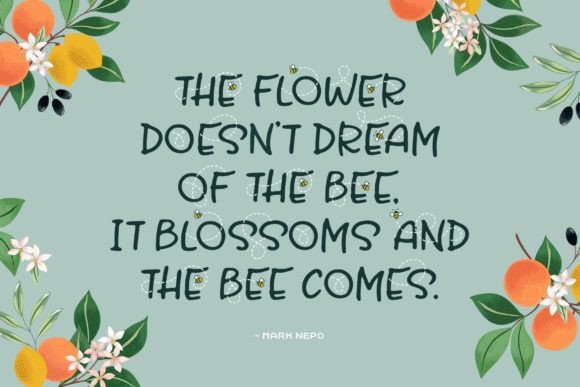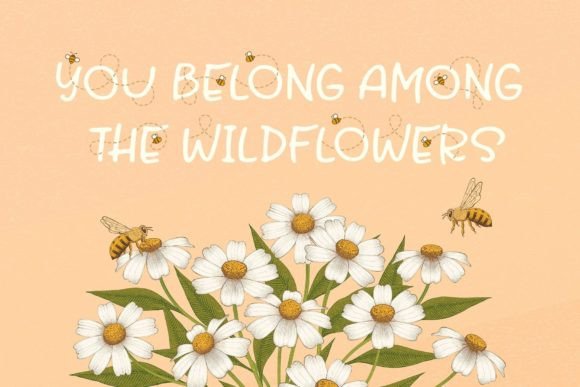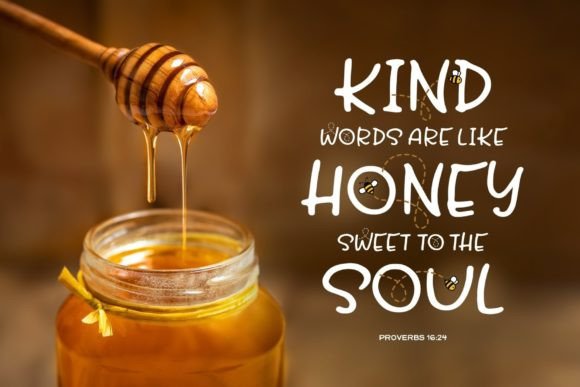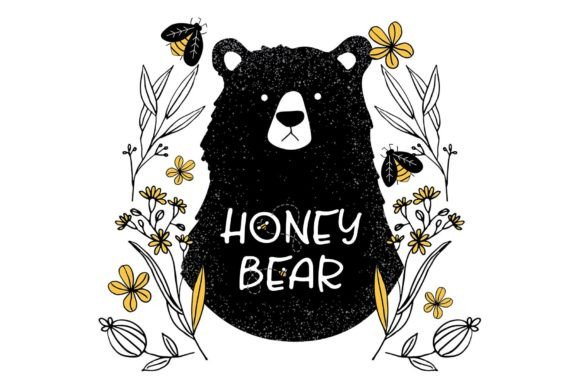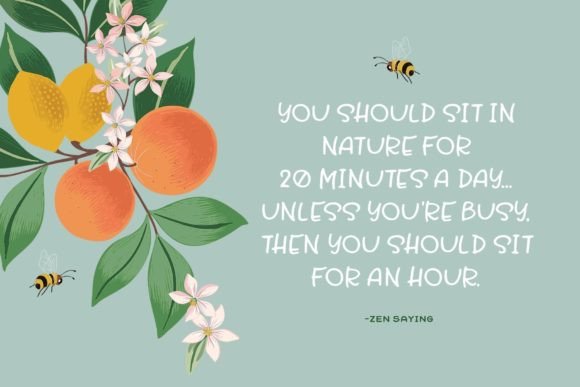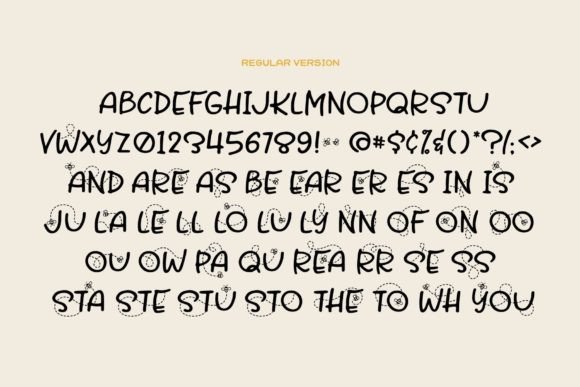
Introduction to Honey and Bee Font
Honey and Bee is a playful hand-drawn font swarming with bees.
It will add an incredibly joyful touch to your designs Add this beautiful and fun font to each of your creative ideas and notice how it makes them stand out.
Key Features of Honey and Bee Font
Why Choose Honey and Bee Font?